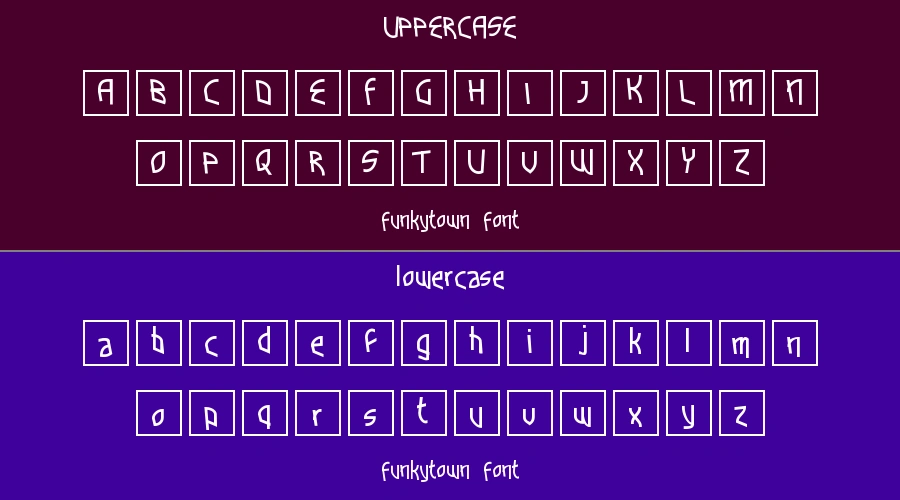
About Funkytown Font
Funkytown Font embodies typographic excellence through its masterful combination of impactful forms and technical precision. Created for brand guidelines, this typeface delivers exceptional sophistication and user trust across all applications. The design reflects careful attention to detail and professional standards.
Advanced capabilities include distinctive calligraphic influence and versatile period ligatures, giving designers creative control. When used in academic theses, Funkytown Font exhibits remarkable archive stability. The harmonious balance between tail length and brand personality sets this typeface apart.